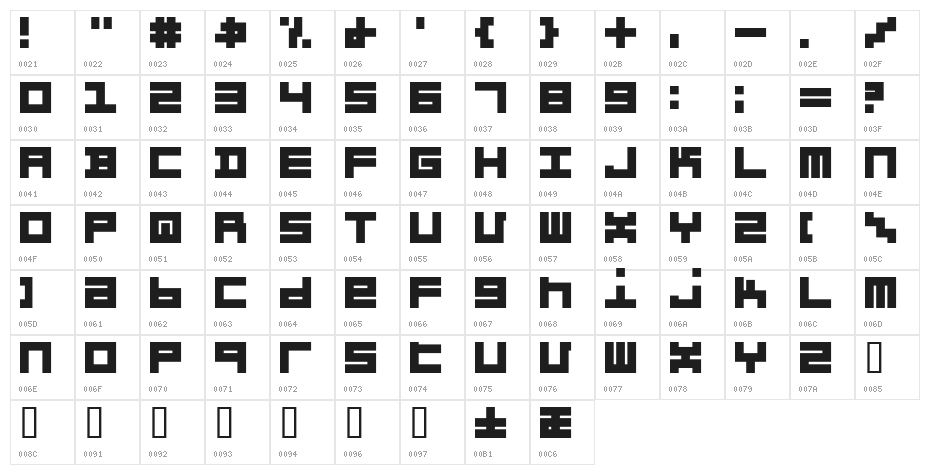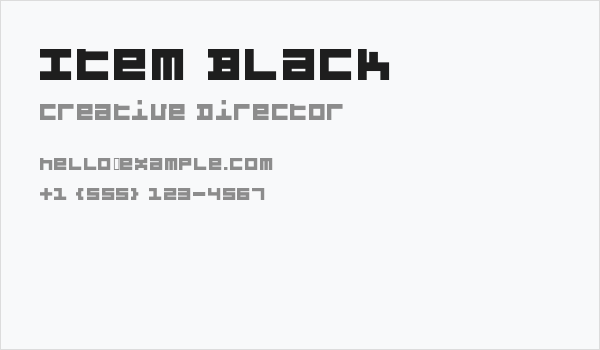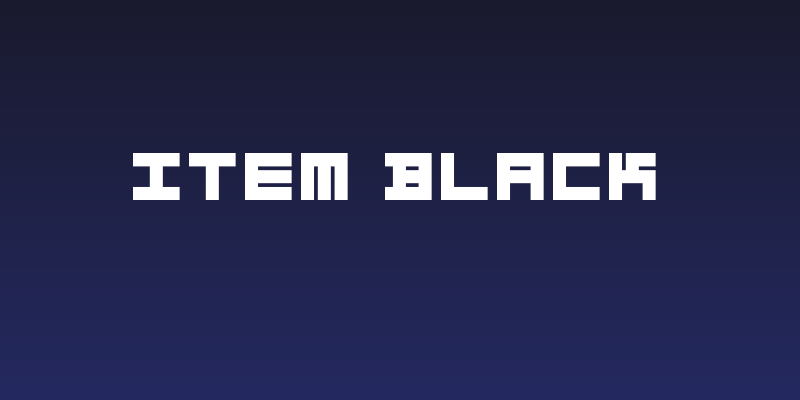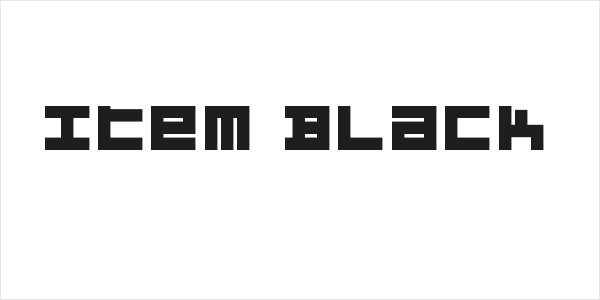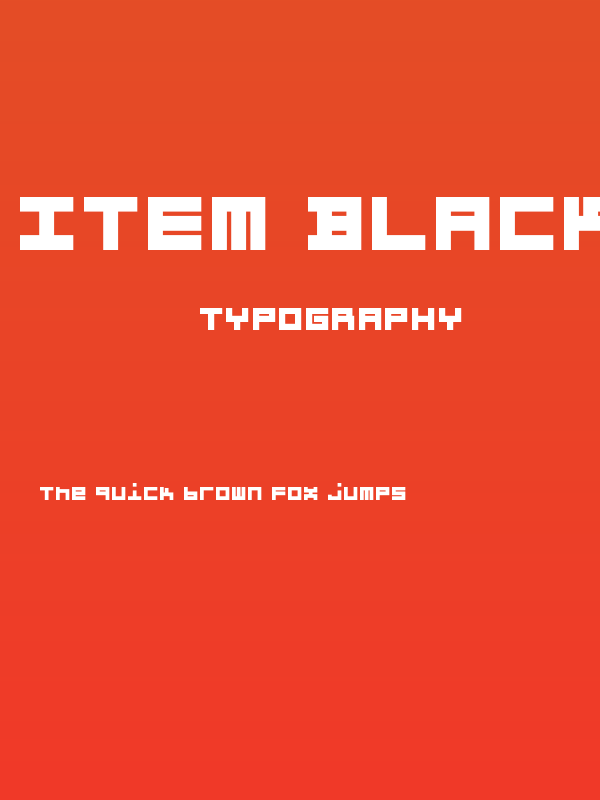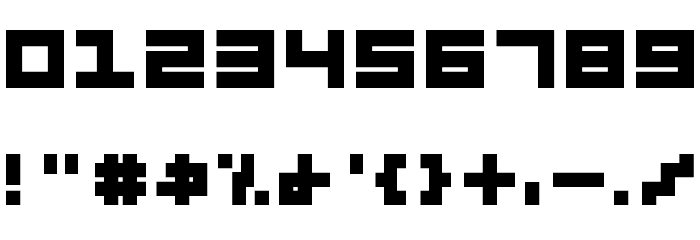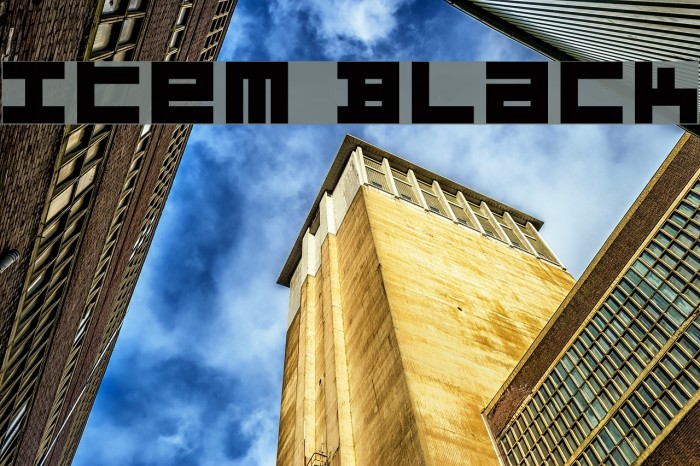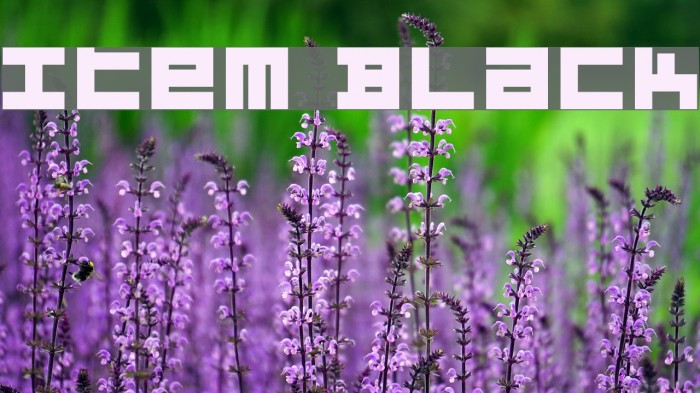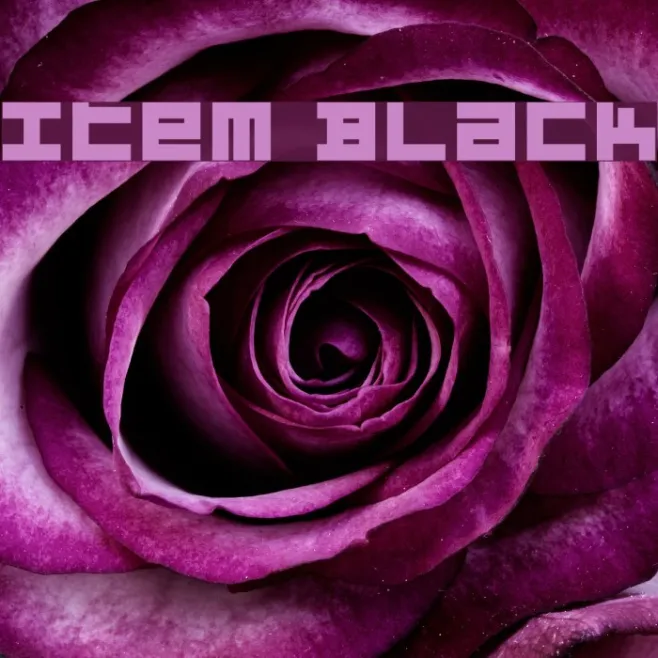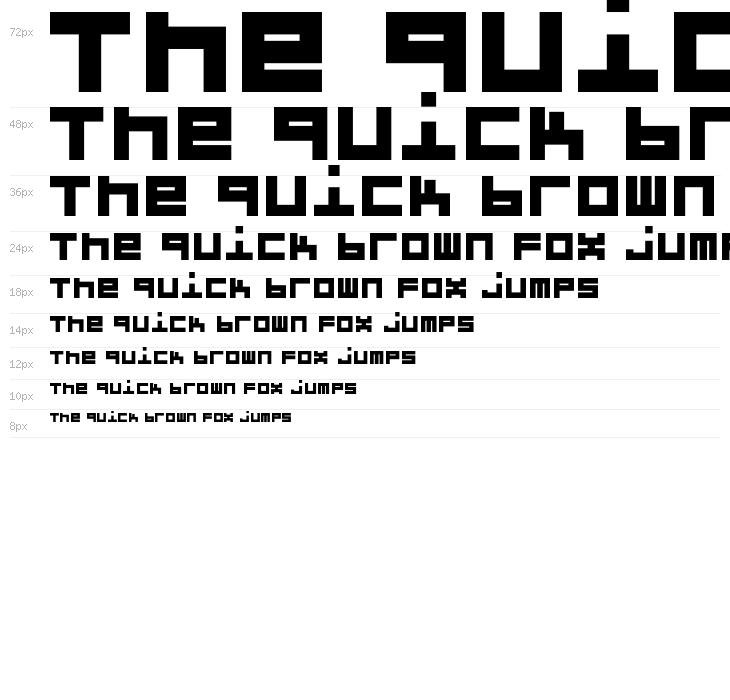
Item Black Font
Item Black Description
This font features a bold, geometric design with a distinctly modern and digital aesthetic. The characters are constructed with thick, block-like strokes, giving them a strong and impactful presence. The angular shapes and uniform thickness throughout the letters create a cohesive and structured look. The uppercase and lowercase letters maintain a consistent style, with minimal variation in stroke width, contributing to a uniform appearance. The numerals and special characters follow the same design principles, ensuring a harmonious overall look. This font's boldness and geometric nature make it ideal for projects that require a strong visual impact.
| Proposed Projects | Ideal for technology branding, video game titles, digital interfaces, and futuristic designs. |